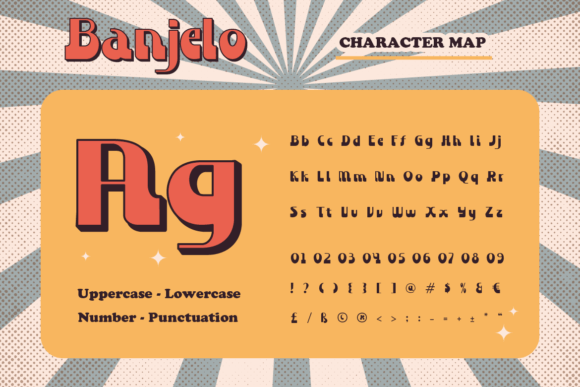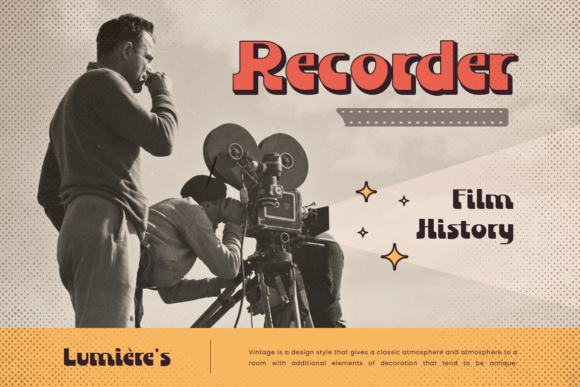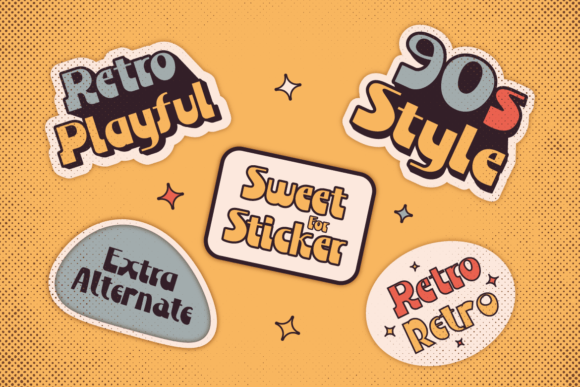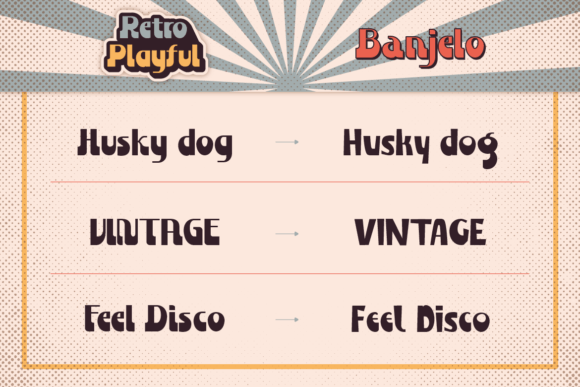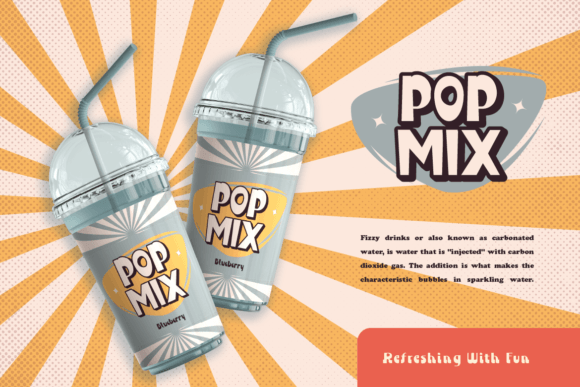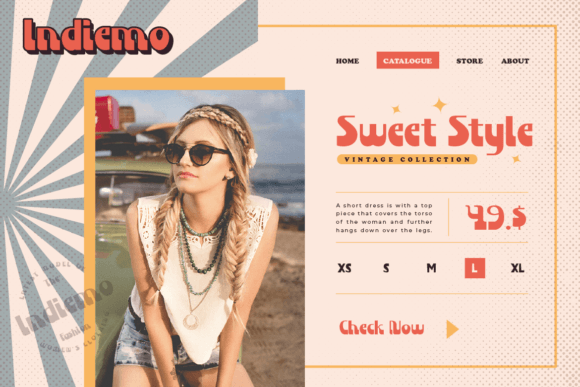
Step Back in Time with the Banjelo Font
Do you remember the thrill of flipping through a vintage magazine, feeling the tactile sensation of the paper and the nostalgic charm of the typography? For many of us, the 90’s were a time of creativity and self-expression, and the fonts of that era continue to inspire designers today. If you’re looking to tap into that retro vibe, you’re in luck – the Banjelo Font is here to transport you back in time.
This stylish font is perfect for adding a touch of nostalgia to your designs, whether you’re creating a logo, social media post, or book title. With its classic feel and versatile style, the Banjelo Font is a valuable asset for designers who want to add a bit of vintage flair to their work.
Banjelo Font Key Features
- Unique Characteristics: Banjelo Font features a unique blend of modern and traditional design elements, with intricate details and ornate flourishes that set it apart from other fonts.
Banjelo Font Review
Overall, I’m impressed with the unique personality of the Banjelo font. It’s an experimental typeface that’s sure to make a statement in your designs. ✨
- Expressive flair: Banjelo’s unconventional letterforms and bold strokes give it a distinctive look that’s perfect for capturing attention. ✨
- High contrast: The font’s high contrast between thick and thin lines creates a dynamic visual effect that’s engaging and eye-catching. ✨
However, as with any experimental font, there are some limitations to consider. ⚠️
- Limited legibility: Banjelo’s bold strokes and irregular letterforms can make it difficult to read, especially in smaller sizes or at a distance. ⚠️
- Lack of cohesion: The font’s varying line widths and irregular shapes can create a sense of visual dissonance, which may not be ideal for large blocks of text. ⚠️
Overall, I’d recommend Banjelo for bold, attention-grabbing headings or titles where legibility isn’t a top priority. If you’re looking for a font that’s sure to make a statement, Banjelo is a great choice. Just be mindful of its limitations when using it for body text or large blocks of content.
Tips for Getting the Most Out of Banjelo Font
Use Banjelo Font for creative projects that require a unique and eye-catching font. It pairs well with bold colors and geometric shapes.
Experiment with different font sizes and styles to create a visually appealing design.